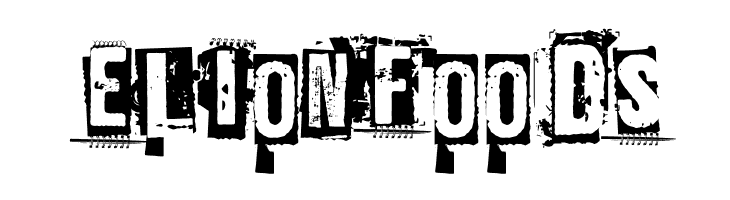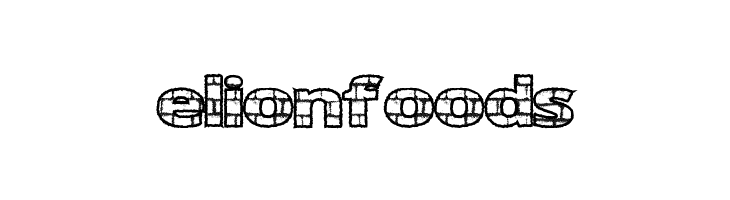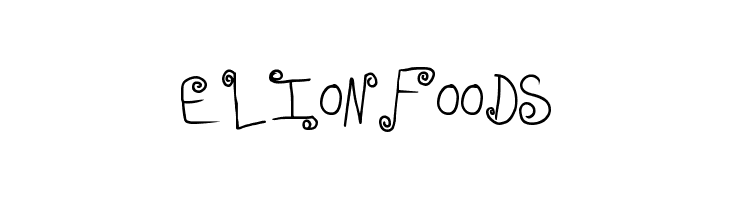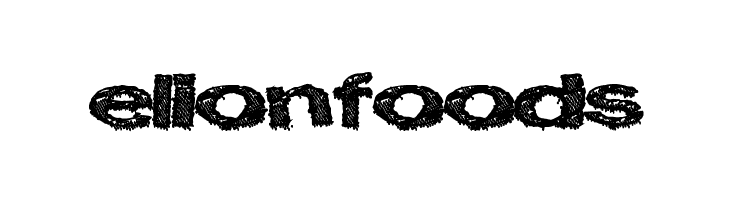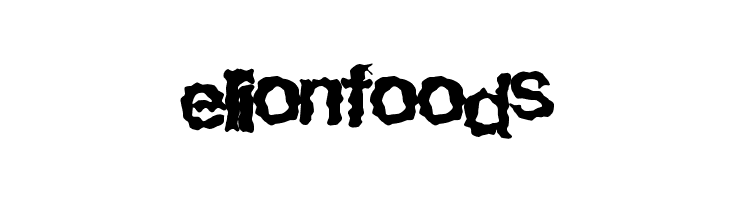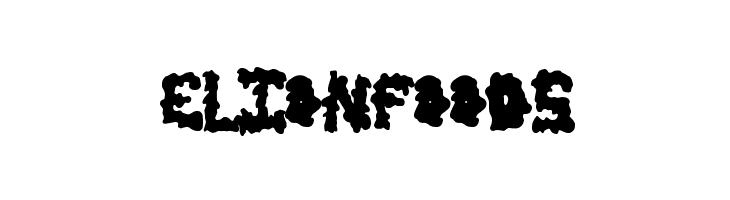
A bold, decorative serif font with intricate patterns and a playful style.
A rugged, distressed font with a bold, hand-drawn appearance.
A bold, decorative font with geometric patterns and thick outlines.
A bold, grunge-style font with a dripping, graffiti-like appearance.
A playful, hand-drawn style font with whimsical and organic characters.
A bold, distressed font with a rugged, vintage look.
A bold, adventurous font with sharp, dynamic strokes and a rebellious spirit.
A pixelated, retro-style font with a bold, monospaced design.
A rugged, hand-drawn font with textured, brush-like strokes.
An elegant, ornate script font with flowing, decorative letterforms.
A playful, hand-drawn font with a whimsical and sketchy style.
A bold, western-themed font with intricate detailing and a vintage feel.
A bold, distressed font with rugged, textured characters.
A bold, textured font with an organic, distressed appearance.
A playful, handwritten font with rounded edges and a casual style.
A bold, dynamic brush script font with expressive strokes and artistic flair.
A bold, distressed font with a grunge-like texture and dynamic style.
A bold, edgy font with jagged strokes and a rebellious style.
A wide, thin, and distressed font with high contrast and a modern, decorative style.
A bold, textured font with a scratched, distressed appearance.
A playful, casual handwritten font with a natural, organic feel.
A bold, shattered glass effect font with jagged, fragmented characters.
A bold, hand-drawn font with a brush-like texture and artistic style.
A bold, italicized font with a dynamic, wind-swept appearance.
An ornate and decorative font with intricate swirls and flourishes.
An ornate, decorative font with whimsical swirls and curls.
A bold, jagged font with thorn-like edges, perfect for dramatic and intense designs.
A bold, decorative font with snowflake patterns for a festive winter theme.
A playful, icy-themed font with a dripping icicle effect.
A bold, playful font with a textured, dotted pattern and rounded, irregular characters.
A decorative font with a whimsical and classic calligraphic style.
A bold, geometric font with a modern and industrial style.
A playful, whimsical handwritten font with decorative star accents.
A dynamic, expressive handwritten font with varied stroke thickness.
A bold, decorative script font with dynamic, brush-like strokes.